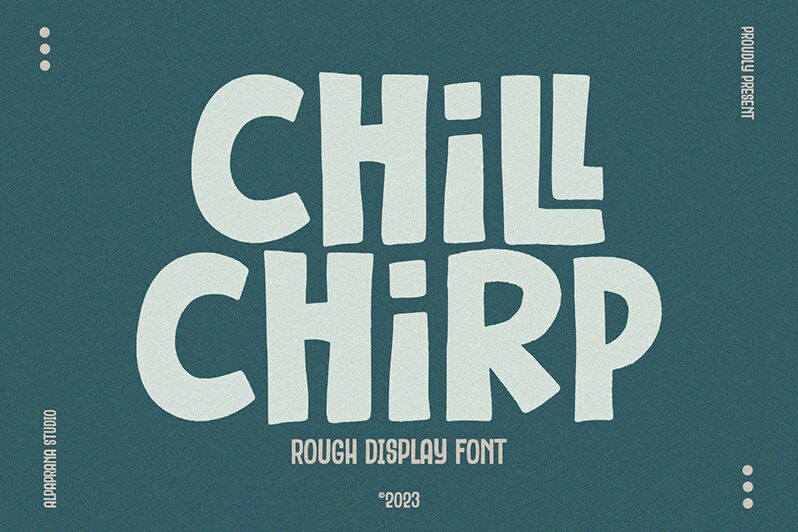
Chill Chirp
Chill Chirp font by Alpaprana Studio is a playful, bold display typeface with cartoonish, retro-inspired vibes. Its bubbly and irregular forms give it an expressive personality, perfect for creating eye-catching designs. With a free-flowing, wavy form and simple details, this free display font has an exciting character that will interest your audiences.
Use the letters in children’s books or magazines, games for kids covers or packaging design like milk cartons. They will also look exceptional in titles or headlines such as posters/flyers for events or movie/Pixar films! Other possible applications are comic books/covers/stores signs; art event invitations; website/blog headers; fashion labels for clothing lines (especially kids).